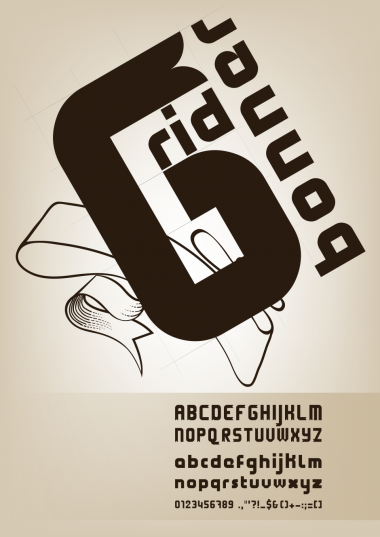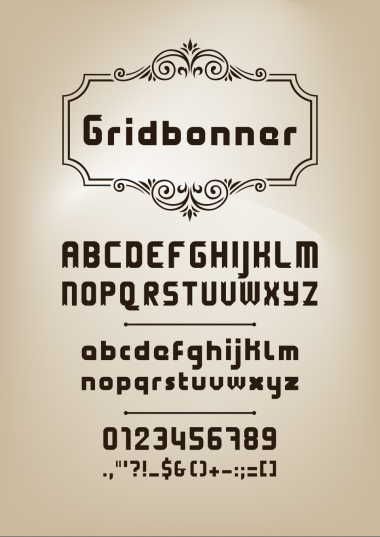
Gridbonner
Font created for an exercise for the "Accademia di Belle Arti di Palermo"
This is a nice font. The specimens really bring out the good qualities in it.
Good first FontStruction. 10/10
Excellent work on that first sample.